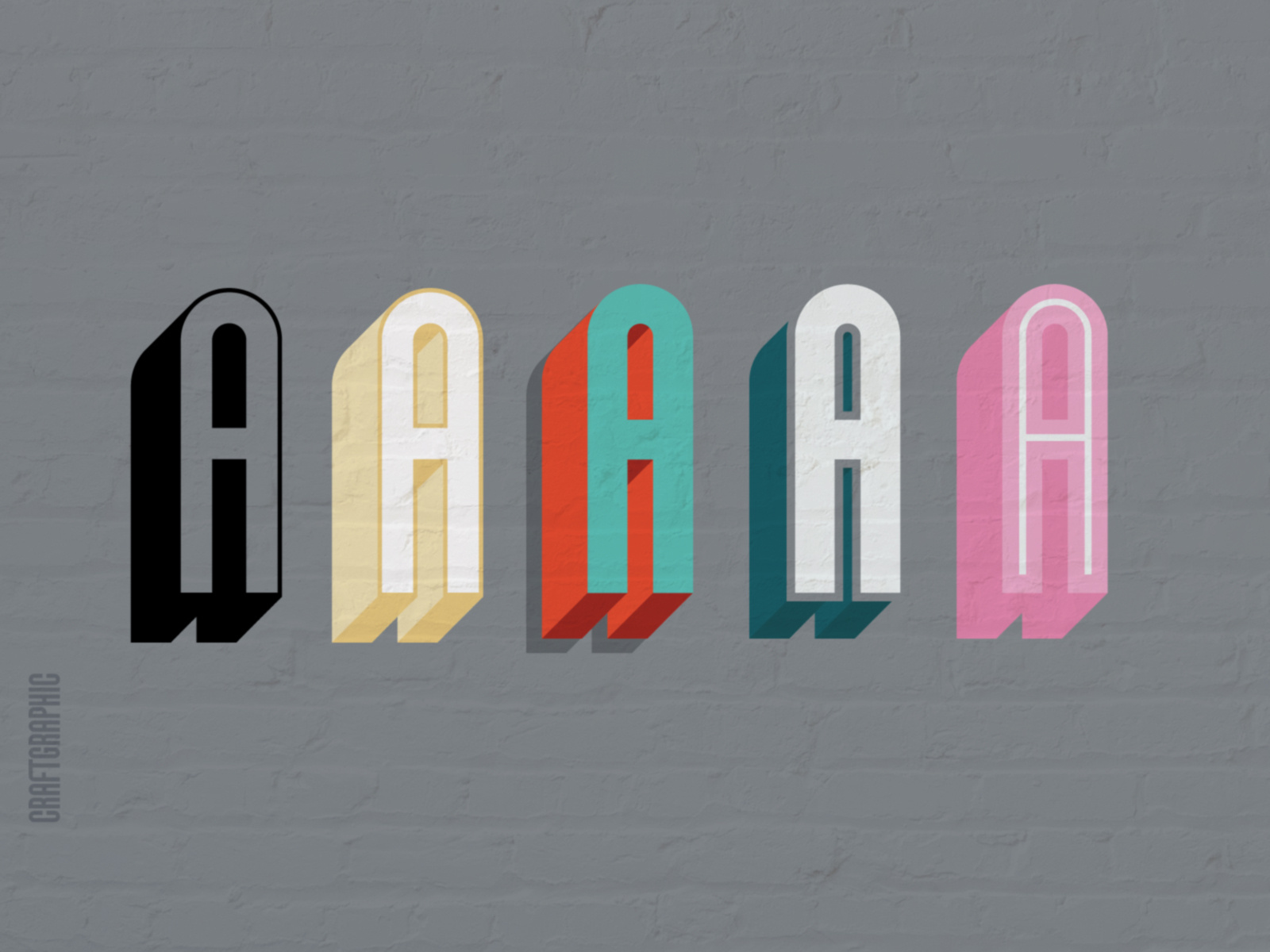
drop shadow SVG font idea
I have been playing with this idea for for an SVG font Set. Not sure how widely used SVG fonts are at the moment? Debating whether to continue developing the upper and lowercase set.